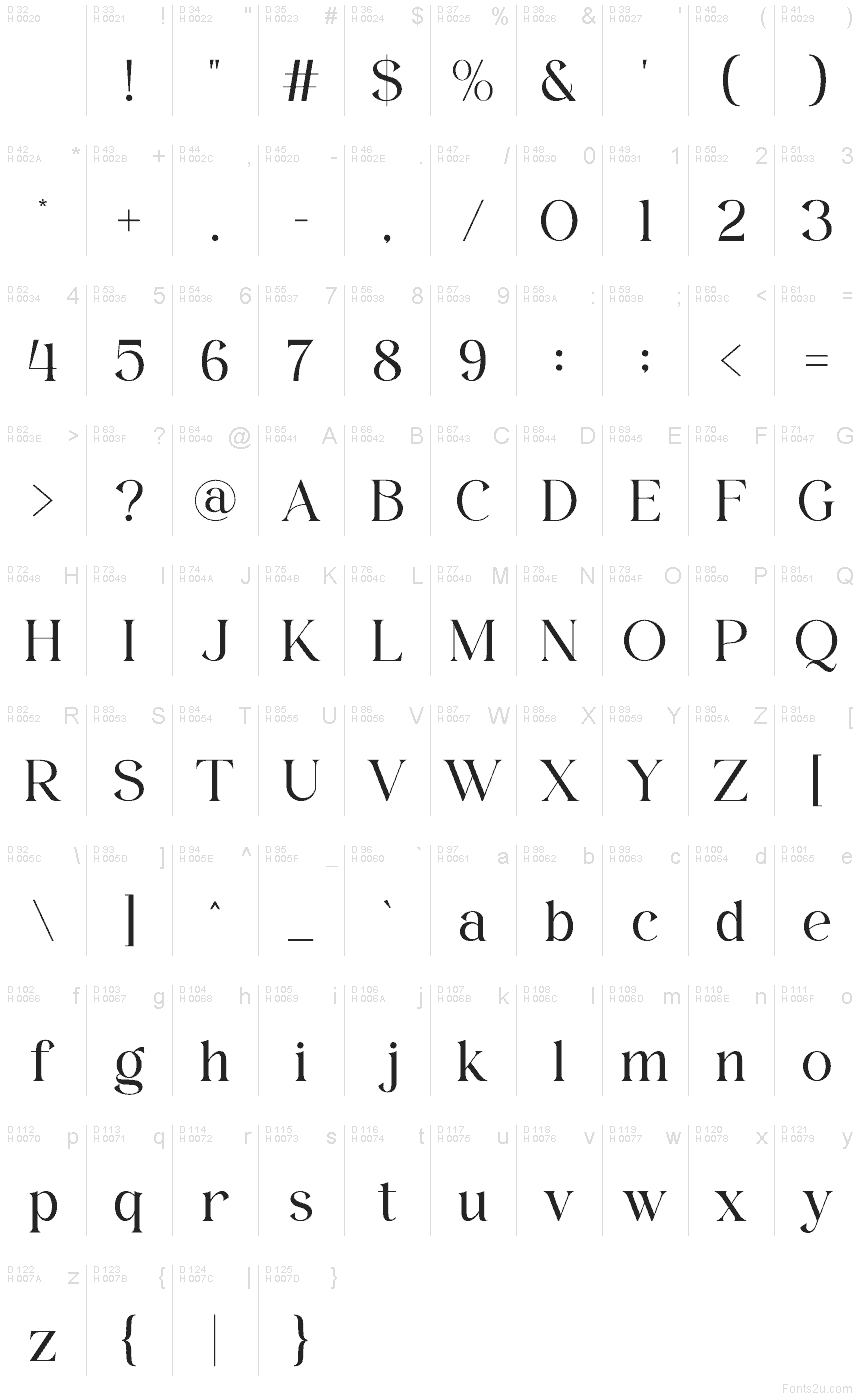
Erios
Erios font by Ermedia Studio is a free high-contrast serif display font. Built around sumptuous thick–thin rhythm and knife-edge serifs, it feels both couture and confident—inky weight where it counts, feather-light hairlines where it dazzles. The generous curves and tight, sculpted joins create a luxurious snap in headlines, giving logos and titles a polished, editorial sheen.
Using Erios, you’ll get standout results on fashion branding, beauty packaging, magazine covers, posters, invitations, and website hero text. This free font shines when set large, where its drama and crisp cuts read instantly. For body copy, pair it with a clean geometric sans and let Erios handle names, headlines, and pull quotes.